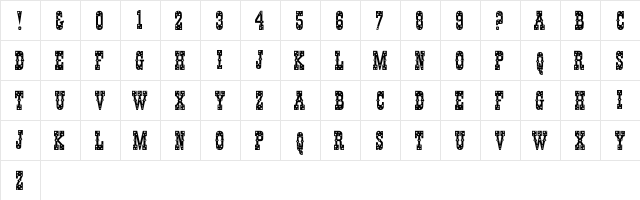
Pentagon Regular
Design Context for Pentagon Typeface
Pentagon takes a measured approach to typography — its balanced proportions and neutral character make it a reliable workhorse for both digital and print work.